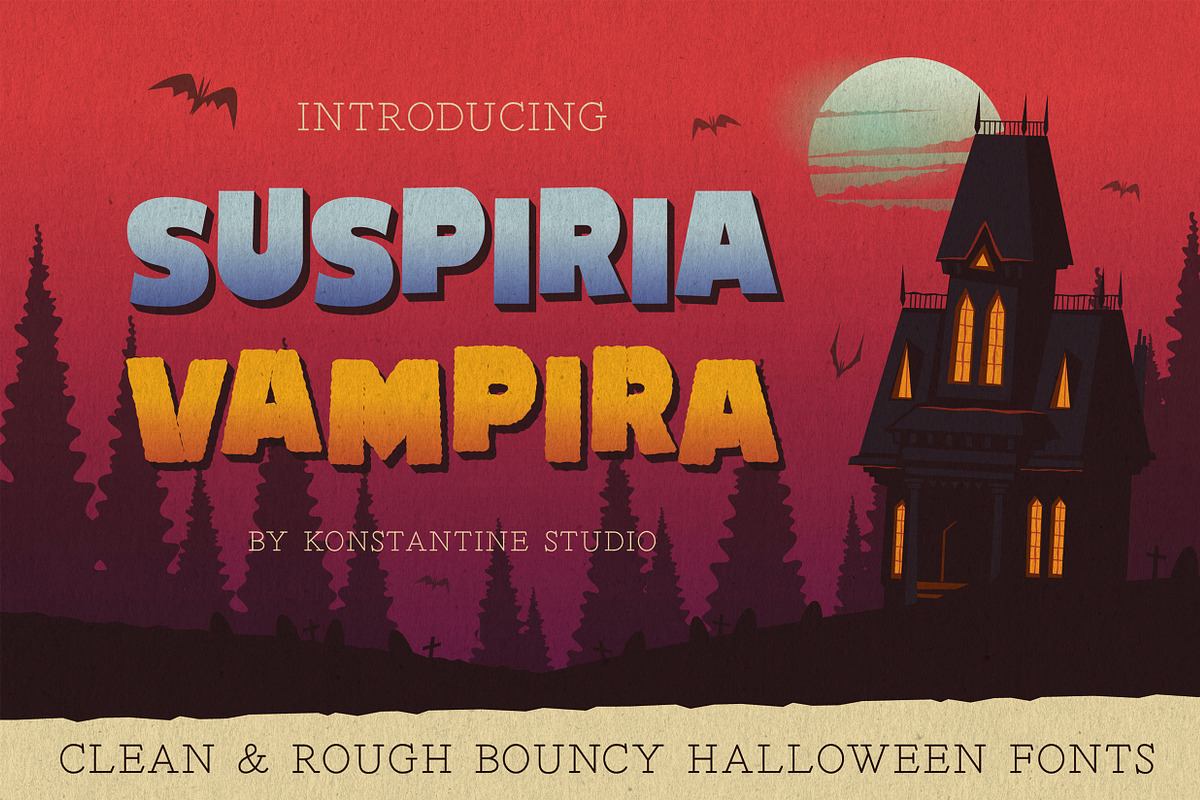
SUSPIRIA VAMPIRA - Bouncy Fonts Free Download
Sink your teeth into the spooky-fun world of the SUSPIRIA VAMPIRA - Bouncy Fonts Free Download — a playful yet slightly eerie typeface perfect for Halloween parties, quirky horror posters, witchy invites, and anything with a creepy-cute vibe. With its uneven baseline and whimsical curves, this font delivers spooky style with a bounce in every letter.
Suspiria Vampira is the perfect blend of gothic and fun. Its hand-drawn, animated feel makes it ideal for both kids’ events and adult horror themes that don’t take themselves too seriously. Whether you're branding a potion label or designing a haunted house flyer, this font adds charm with a bite.